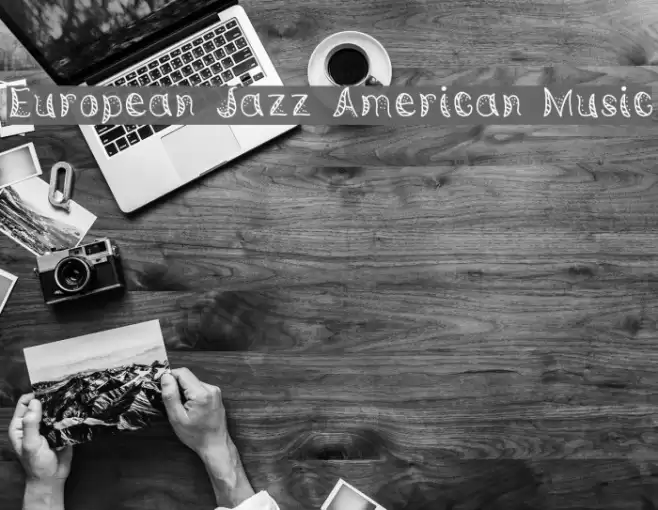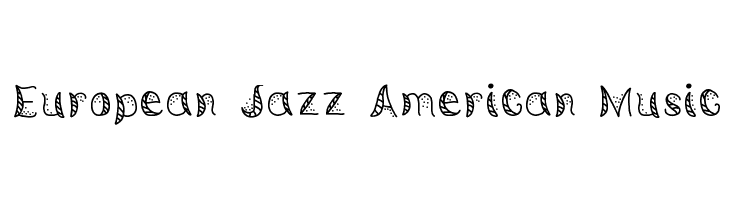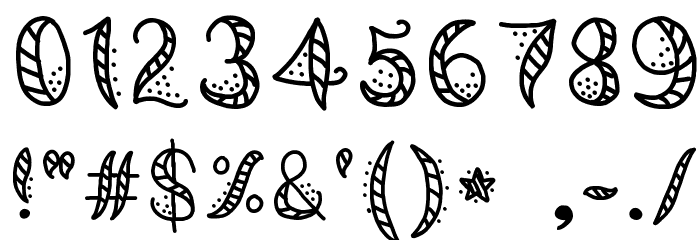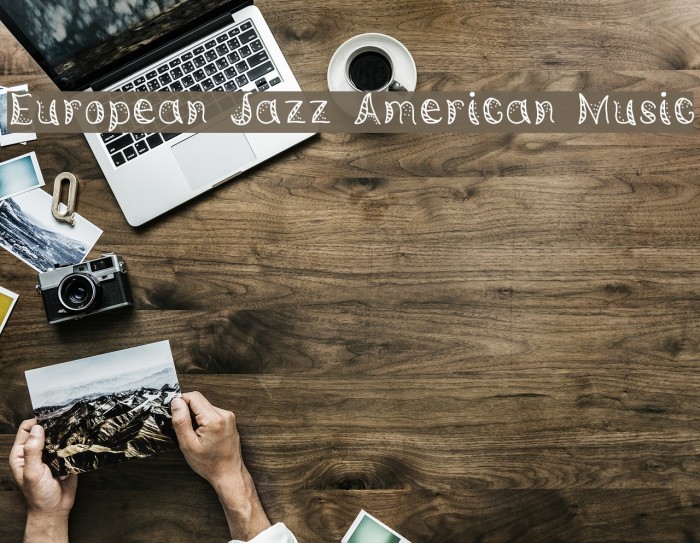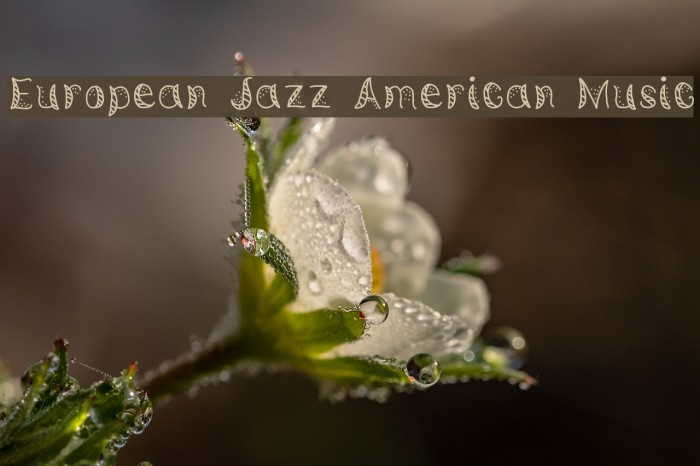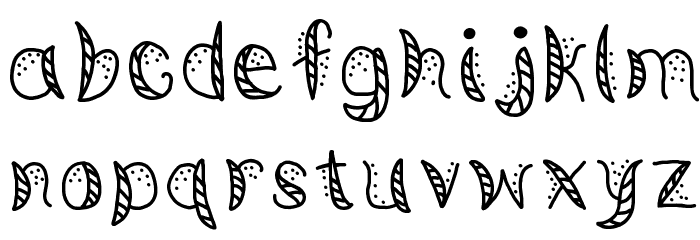
European Jazz American Music Font
European Jazz American Music Description
This font features a playful and whimsical design, characterized by its unique decorative elements within each character. The letters are adorned with dots and stripes, giving them a lively and dynamic appearance. The overall style is reminiscent of hand-drawn or doodle art, making it stand out with its artistic flair. The uppercase and lowercase letters maintain a consistent style, while the numbers and special characters follow the same decorative theme. This font is perfect for projects that require a fun and creative touch, such as children's books, party invitations, or artistic posters.
A playful, decorative font with whimsical dots and stripes from Decorative fonts.
- Proposed Projects: Ideal for children's books, party invitations, artistic posters, and creative branding.
- Use Case: Headlines, Logos, Artistic projects